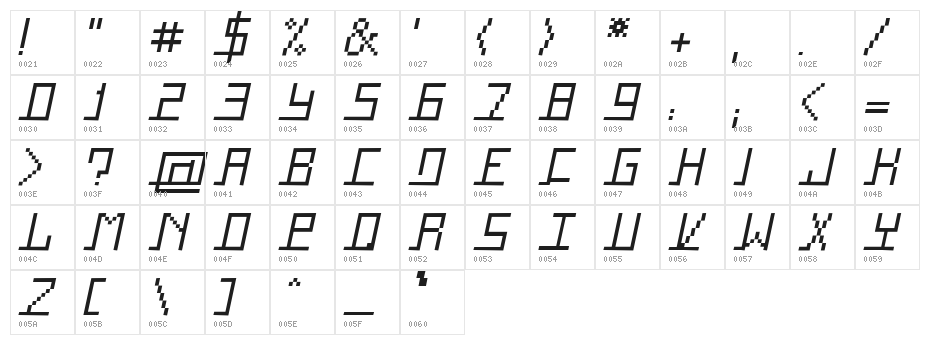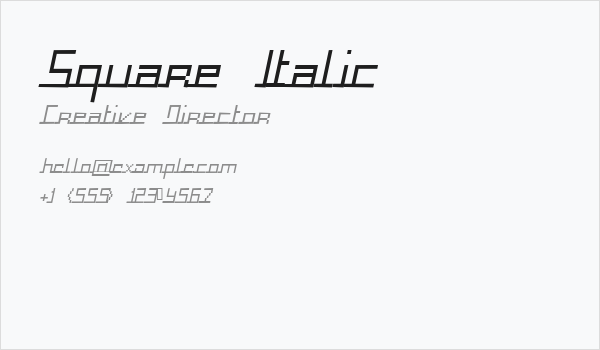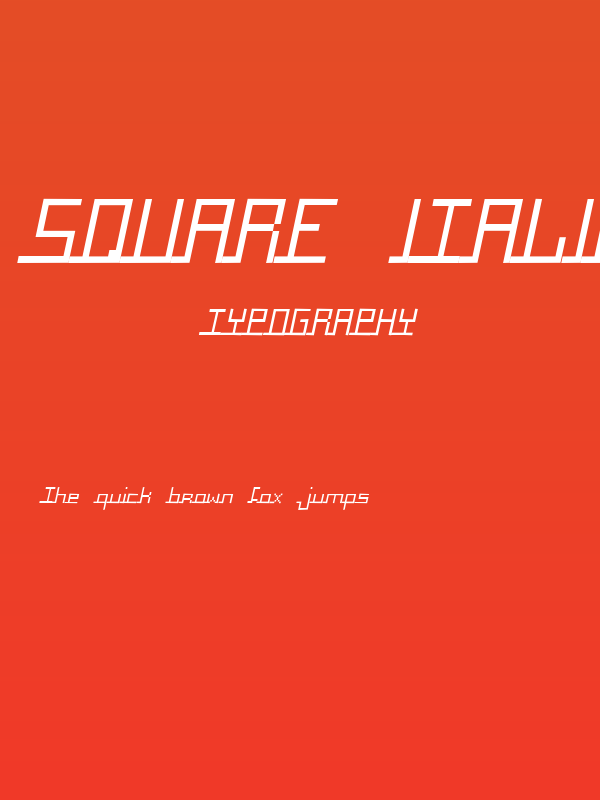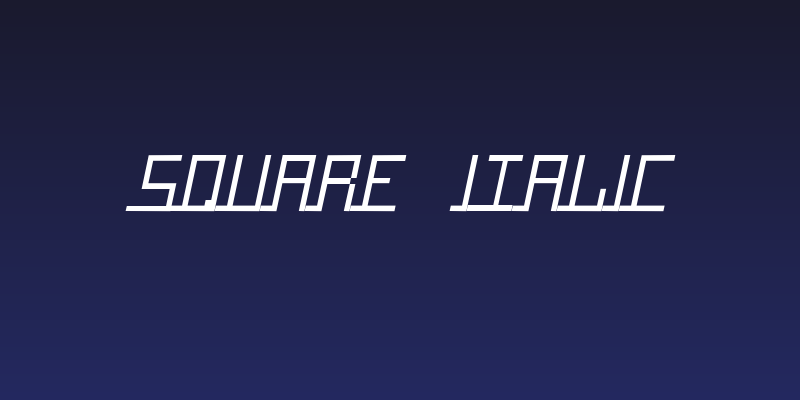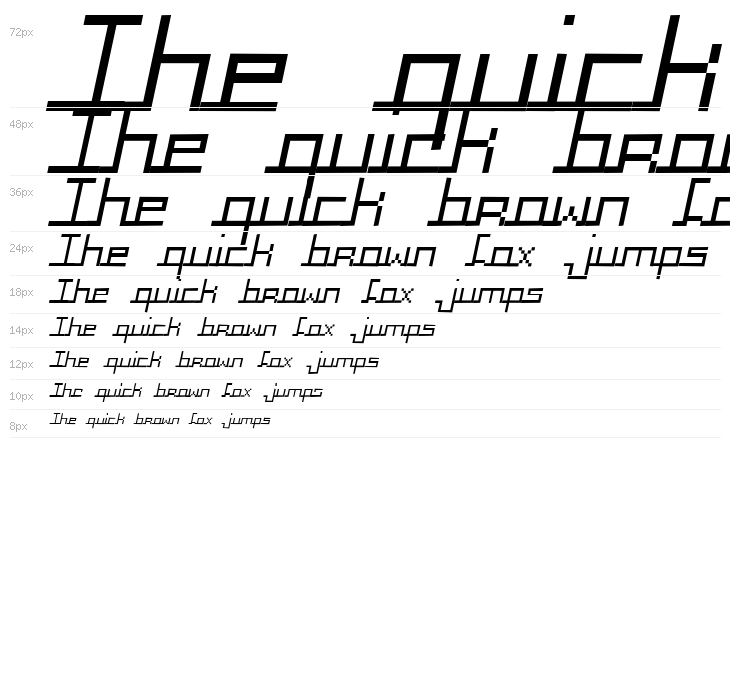
Square Italic Font
Square Italic Description
This font features a unique, pixelated design with an italic slant, giving it a modern and digital appearance. Each character is constructed with a grid-like structure, reminiscent of early computer graphics or retro video games. The uppercase and lowercase letters maintain a consistent height, while the numbers and special characters follow the same pixelated style. The overall look is clean and geometric, making it suitable for projects that require a tech-savvy or futuristic aesthetic.
SQUARE-ITALIC UPPERCASE
SQUARE-ITALIC LOWERCASE
SQUARE-ITALIC OTHER CHARS
| Use Case | Logos, Headlines, Digital Art |
| Proposed Projects | Ideal for video game design, tech-themed posters, digital art projects, and retro-style branding. |